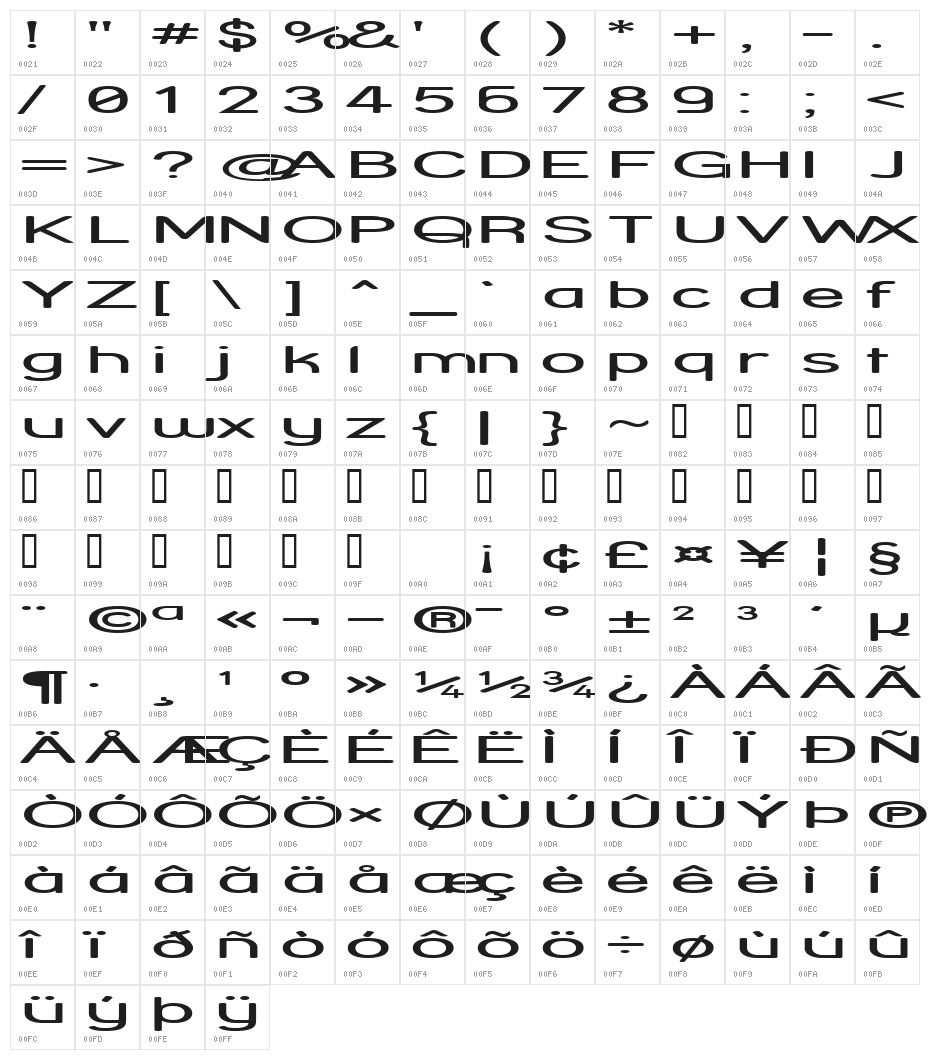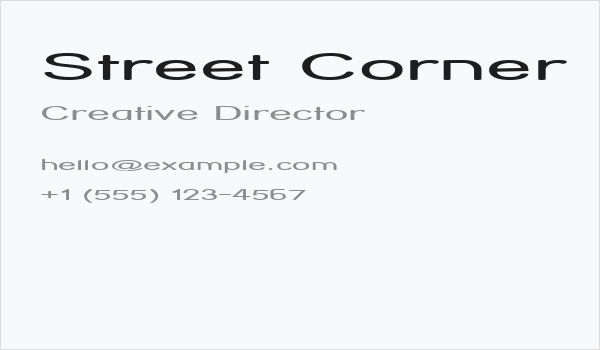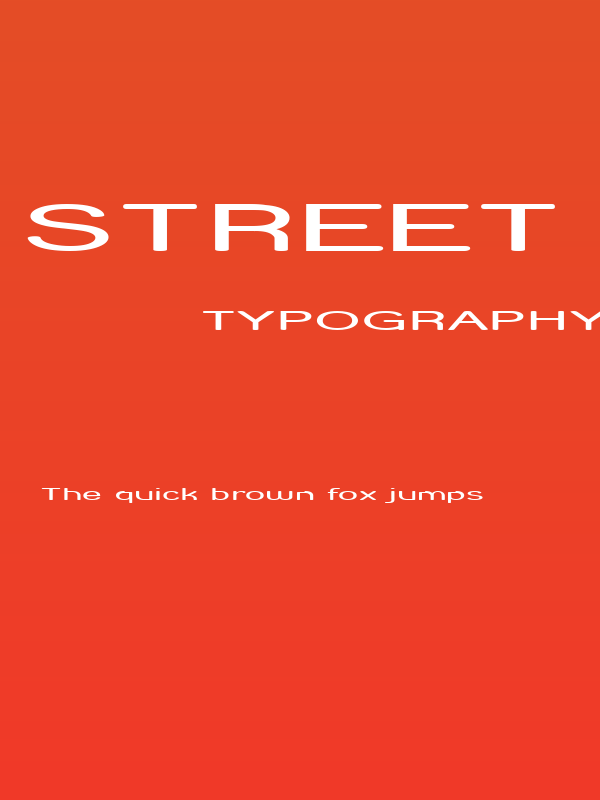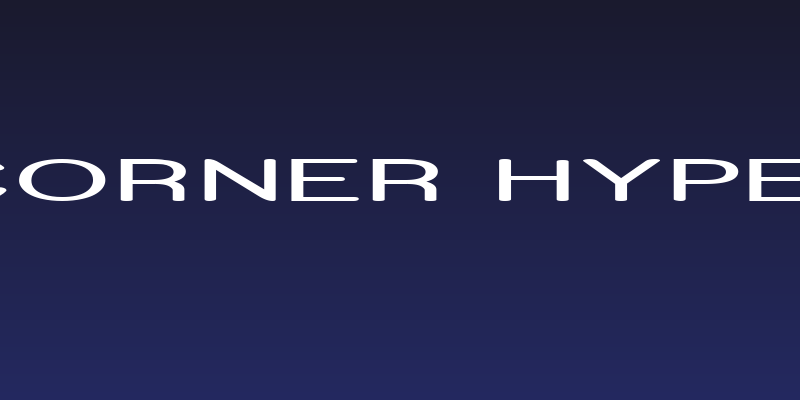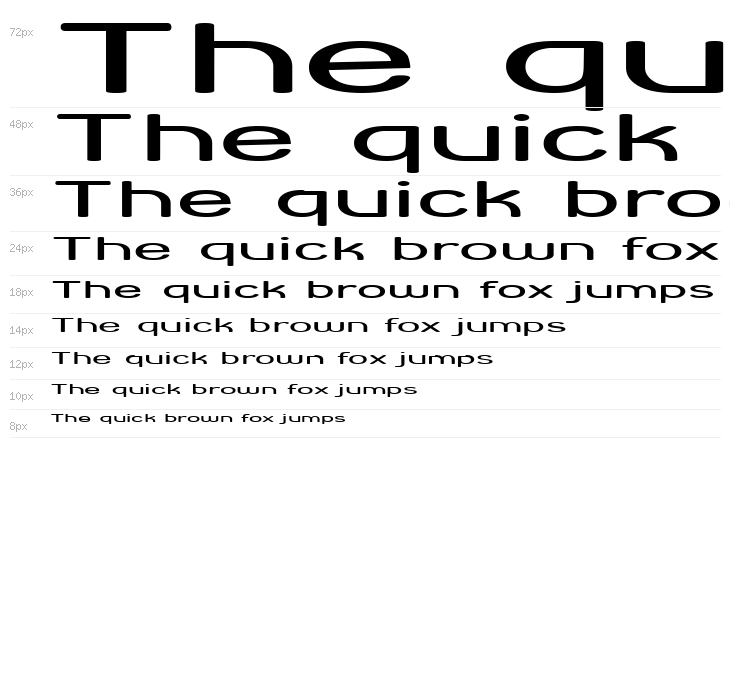
Street Corner HyperExtend Font
Street Corner HyperExtend Description
This font features a clean and modern sans-serif design with smooth curves and a slightly extended width. The uppercase letters are bold and assertive, while the lowercase characters maintain a consistent flow with rounded edges. The numerals are clear and easily distinguishable, making them suitable for both digital and print applications. Special characters are well-integrated, maintaining the overall aesthetic of the font. Its simplicity and clarity make it versatile for various design projects, offering a contemporary yet approachable feel.
| Use Case | Headlines, Logos, Digital Interfaces |
| Proposed Projects | Ideal for branding, signage, digital interfaces, and editorial design. |